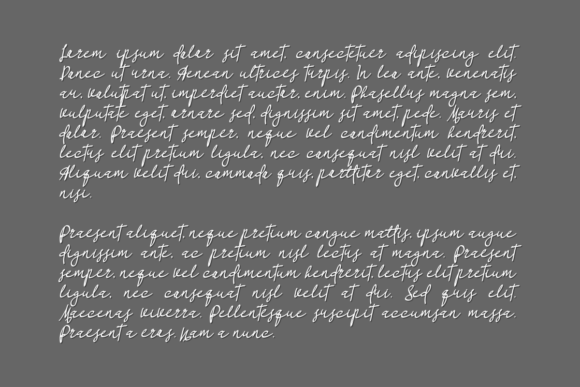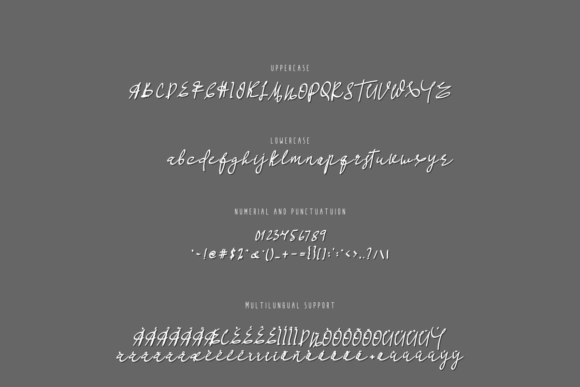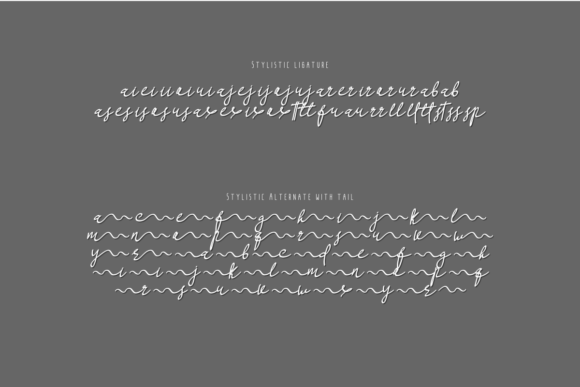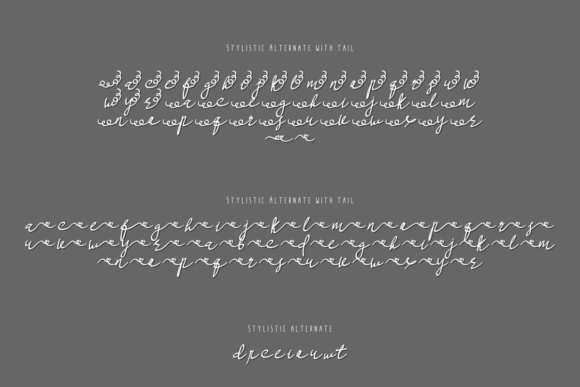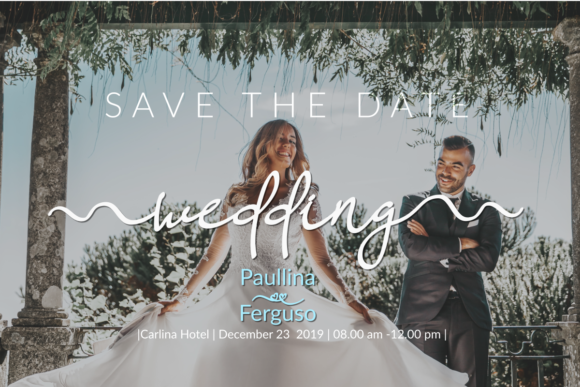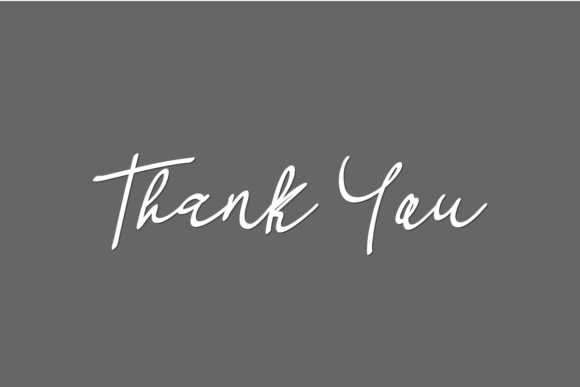
HomeScript FontsSeduh Font Script Fonts Seduh Font FacebookXPinterestWhatsApp Seduh Font Poster 2 Seduh Font Poster 3 Seduh Font Poster 4 Seduh Font Poster 5 Seduh Font Poster 6 Seduh Font Poster 7 About Seduh Font Seduh is a stunning script with beautiful and light swashes. It will add a powerful feel to any design idea! DOWNLOAD ON CREATIVE FABRICAThis font is sold and delivered by Creative Fabrica. Font Canyon may earn a commission if you buy through this link. People also explored Jumpscare Font Balanar Dumbledork Font Camellina Script Font Salahutu Font Nextart Bold Font Lovely Lillie Font Duo Cheston Beat My Guest 307 0 TagsSeduh Font Previous articleAntonega FontNext articleMarthis Font LEAVE A REPLY Cancel reply Comment: Please enter your comment! Name:* Please enter your name here Email:* You have entered an incorrect email address! Please enter your email address here Website: Save my name, email, and website in this browser for the next time I comment. Personal Use Free Crellia Script Personal Use Free Read more about this font BD Algebra Personal Use Free Read more about this font Lost Treasure Personal Use Free Read more about this font Roustel Personal Use Free Read more about this font BLOG Using Fonts in Digital Marketing: Tips to Strengthen Your Brand Identity In the realm of digital marketing, every visual element plays a crucial role in shaping a brand's identity, and fonts are no exception. The... 5 Fonts That Will Dominate Design Trends in 2026 Exploring Font Trends Free Fonts Risk: Why Free Fonts Can Be Dangerous for Designers